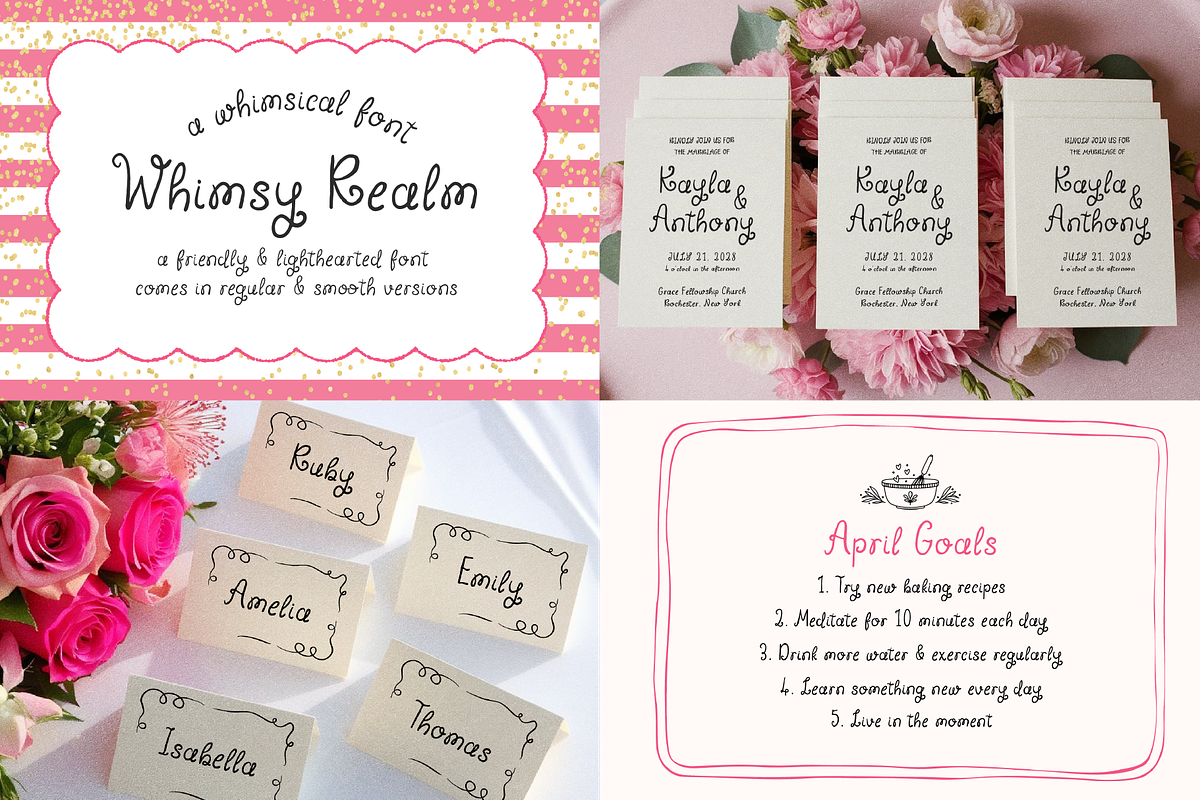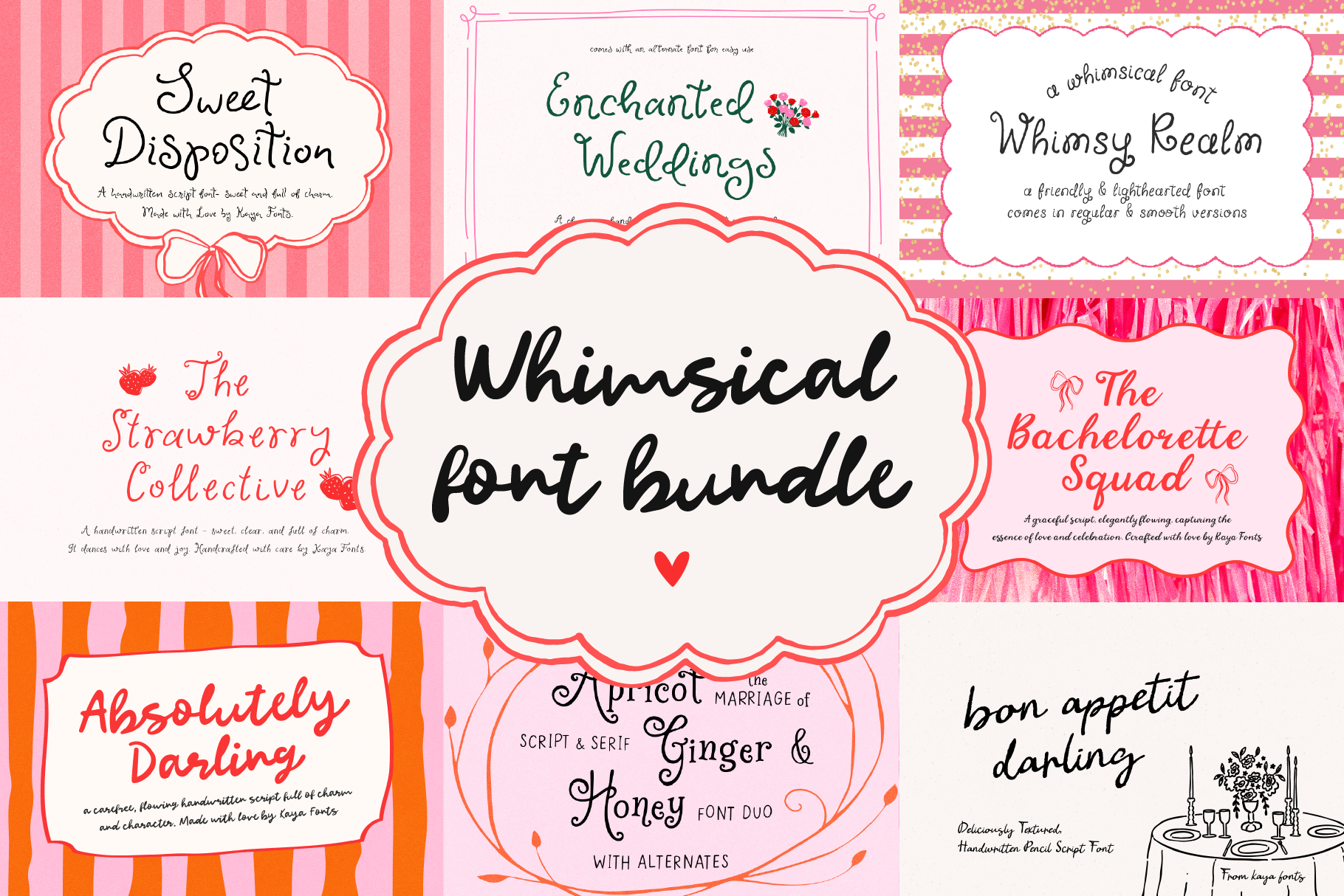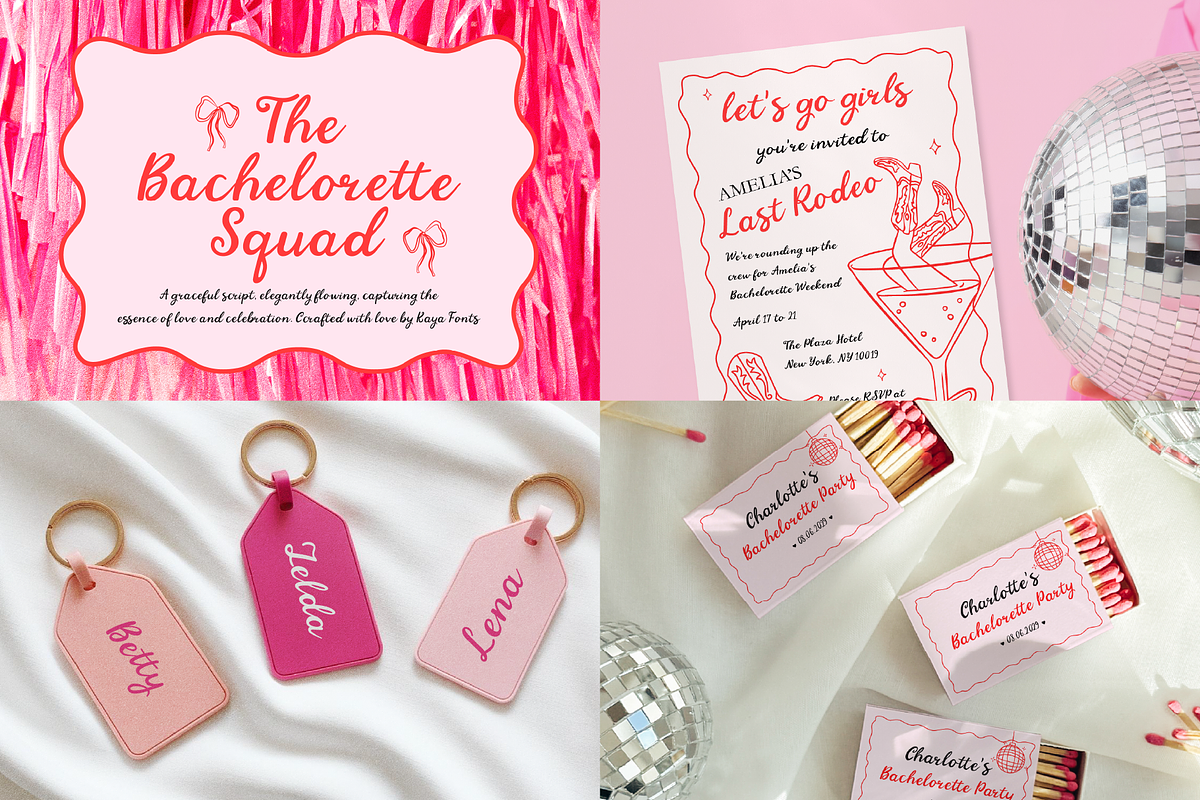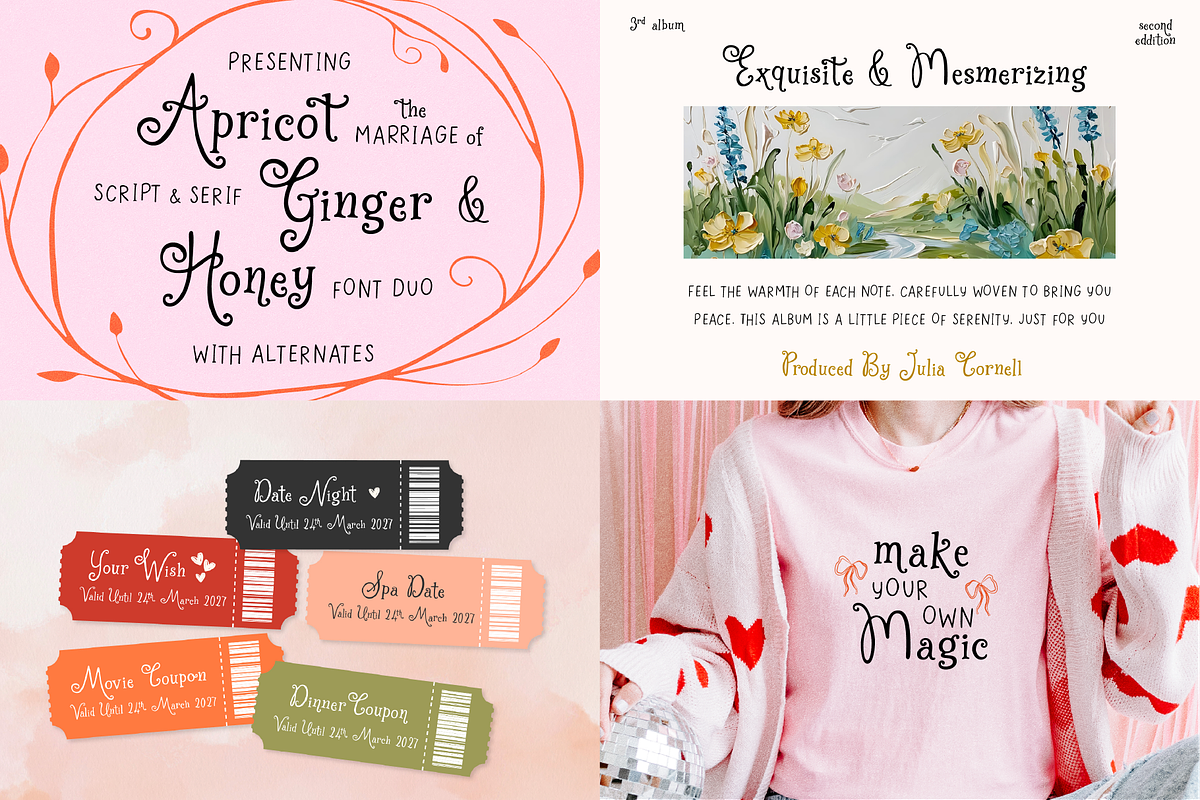
Whimsical Handwritten Font Bundle
Whimsical Handwritten Font Bundle is a collection of 13 unique handwritten fonts from 9 typefaces, each with its own unique character.
Multilingual Support: Every font in this bundle (except Bon Appetit Darling) offers extensive multilingual support, including accented characters for a wide range of European and global languages.